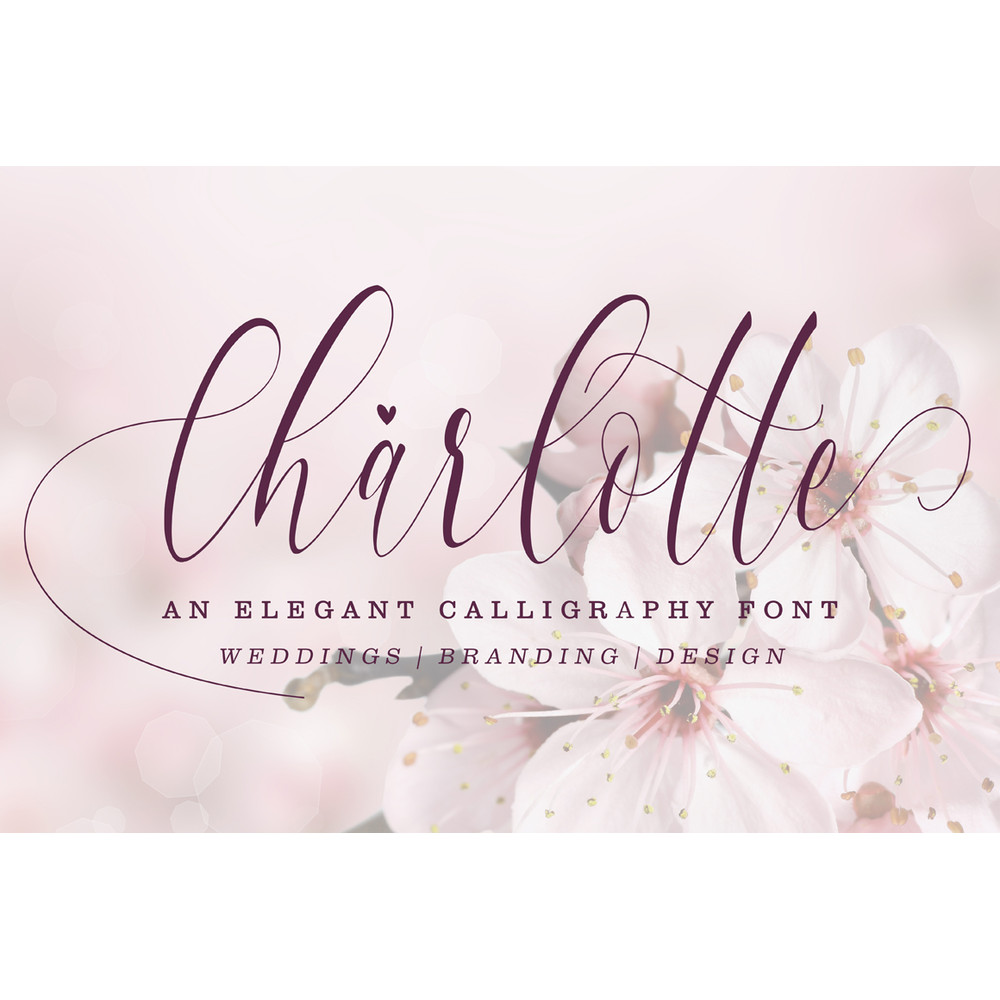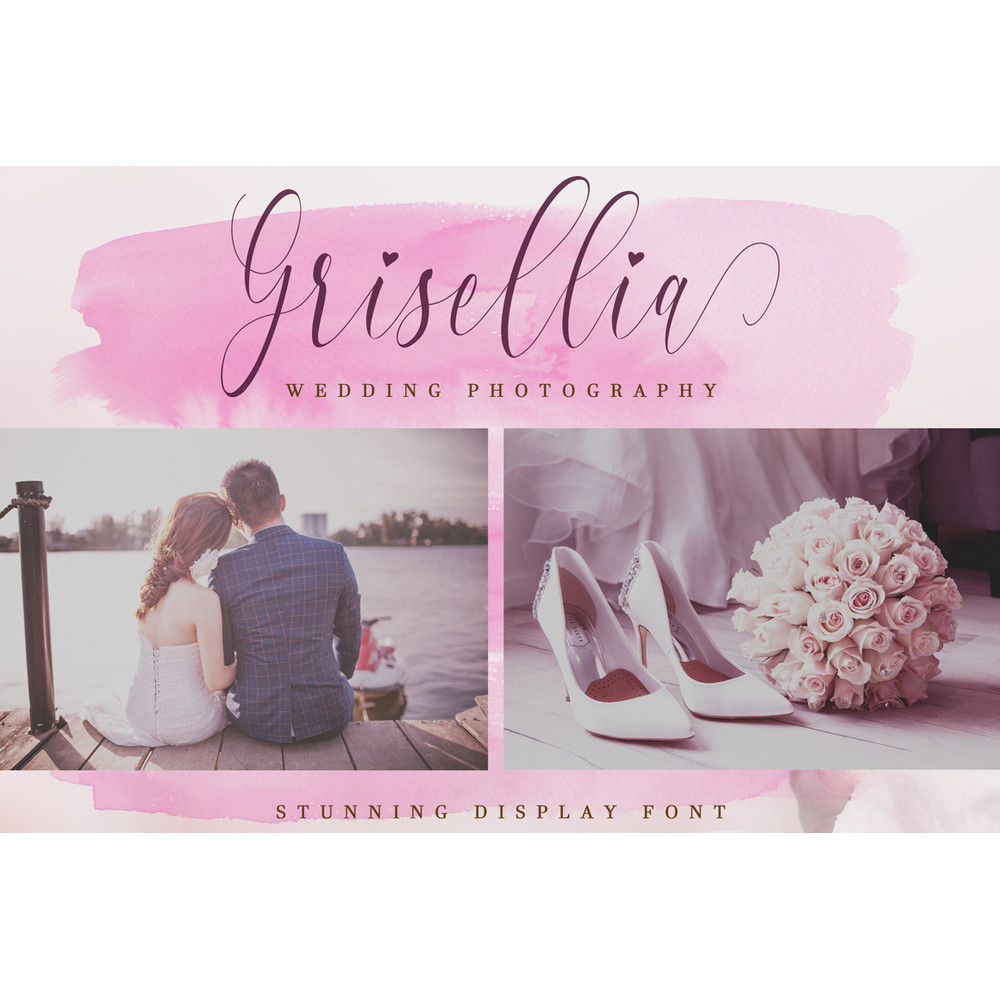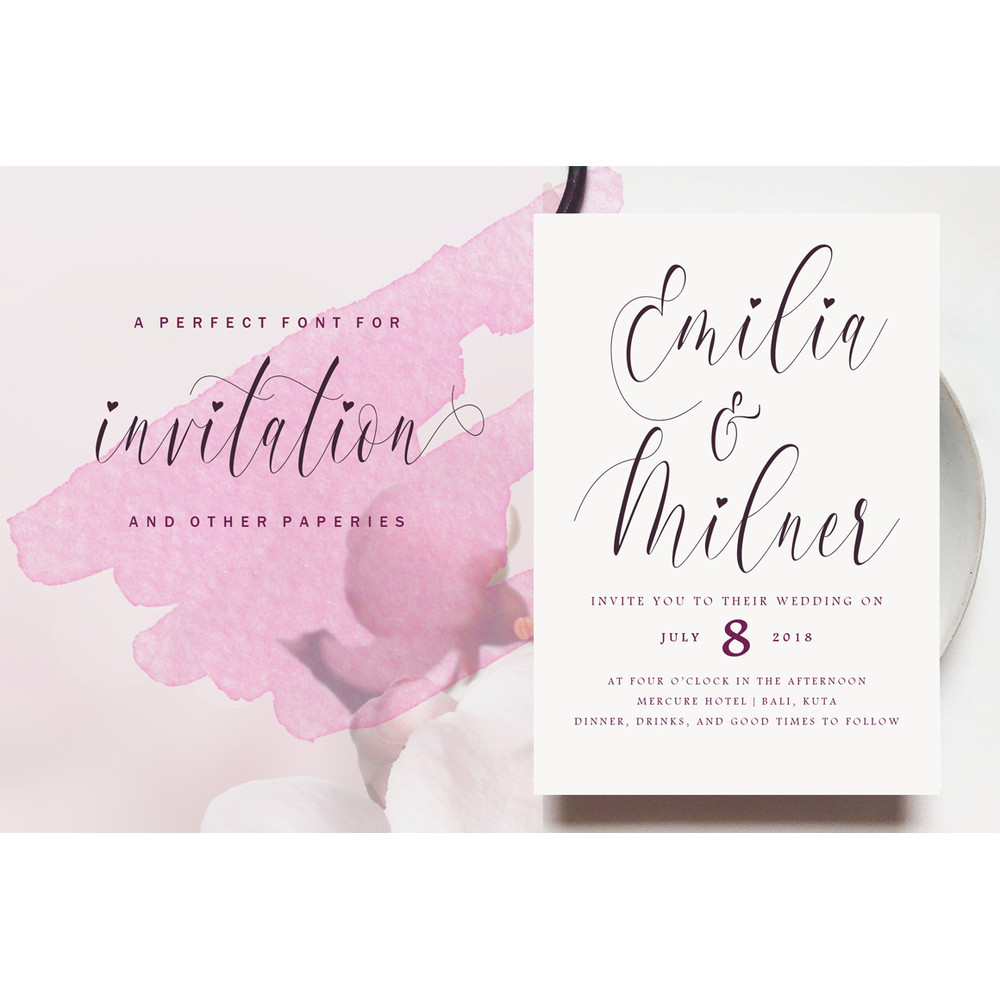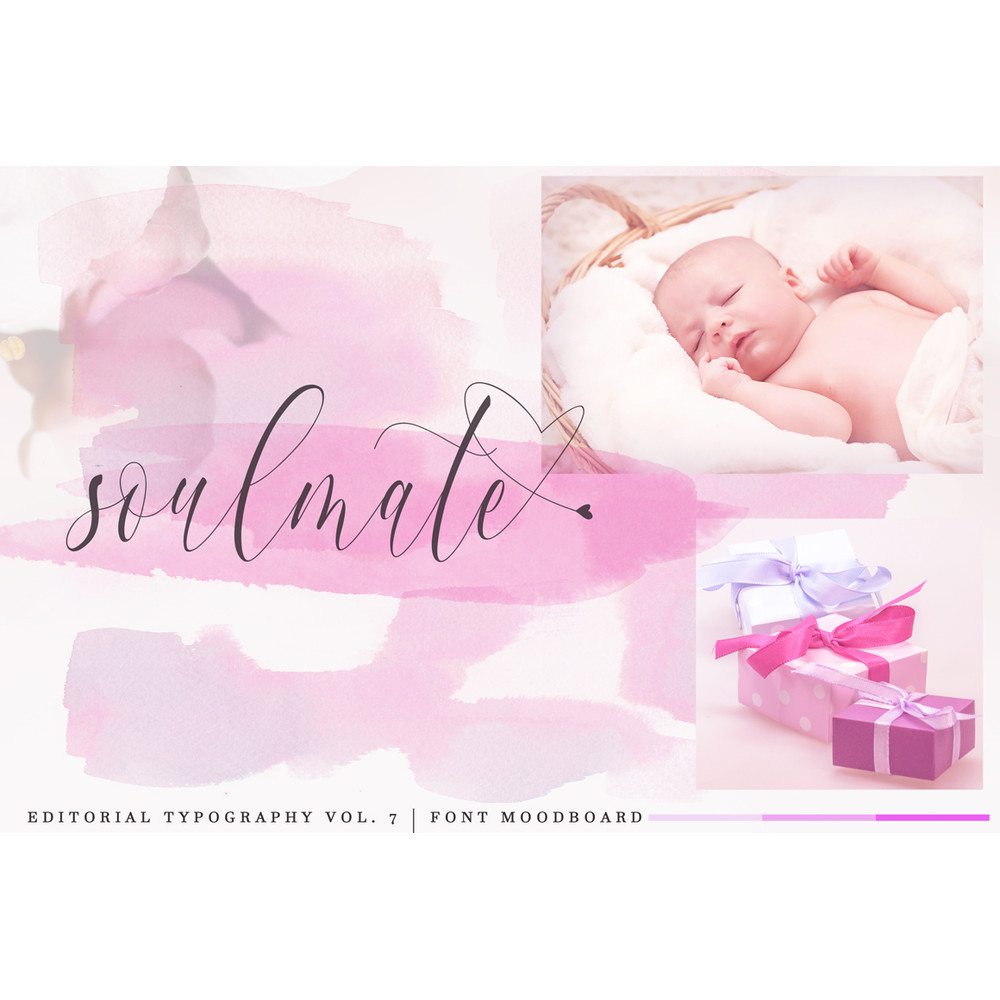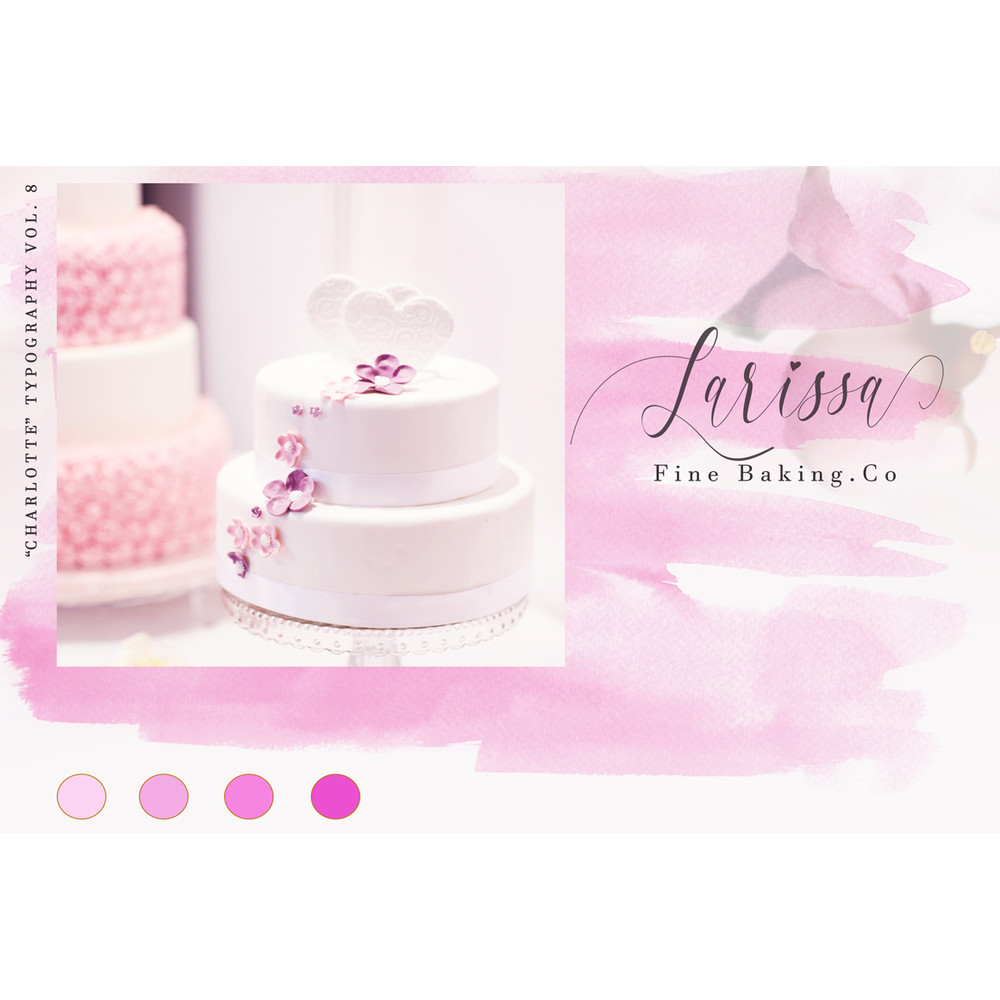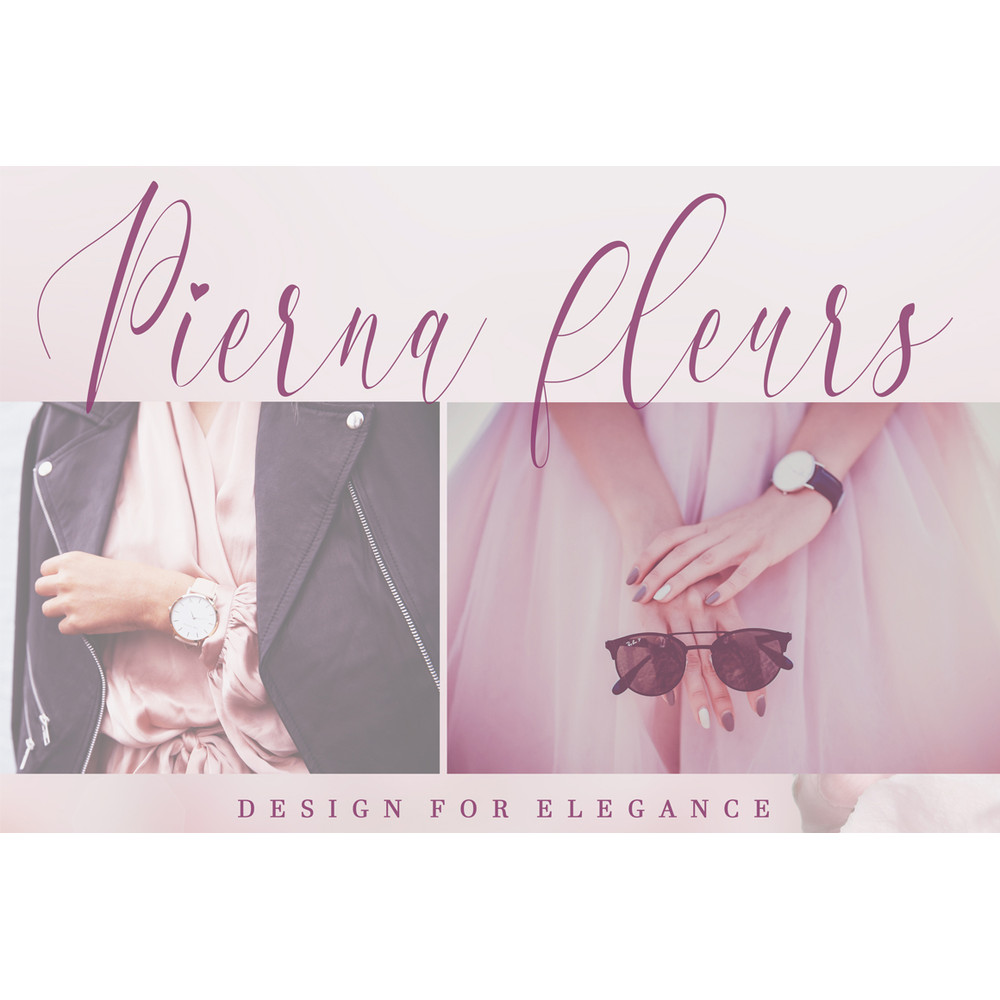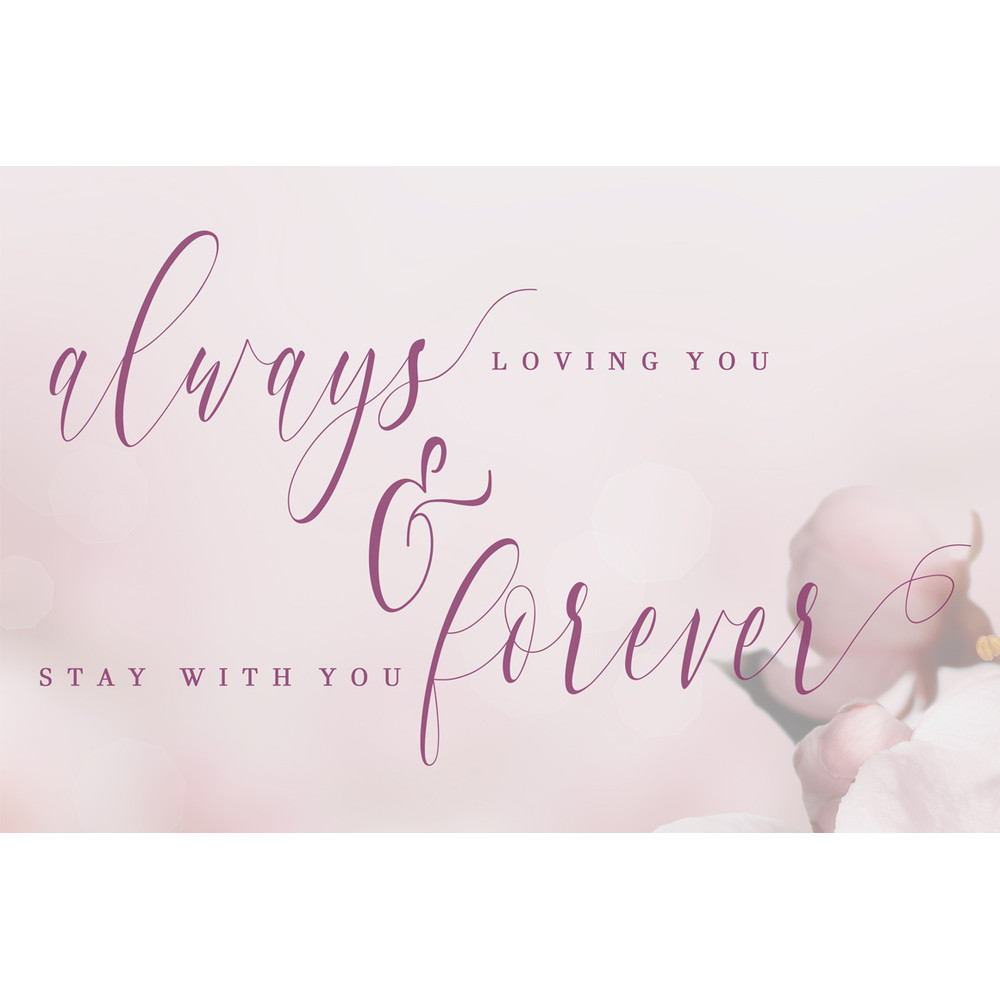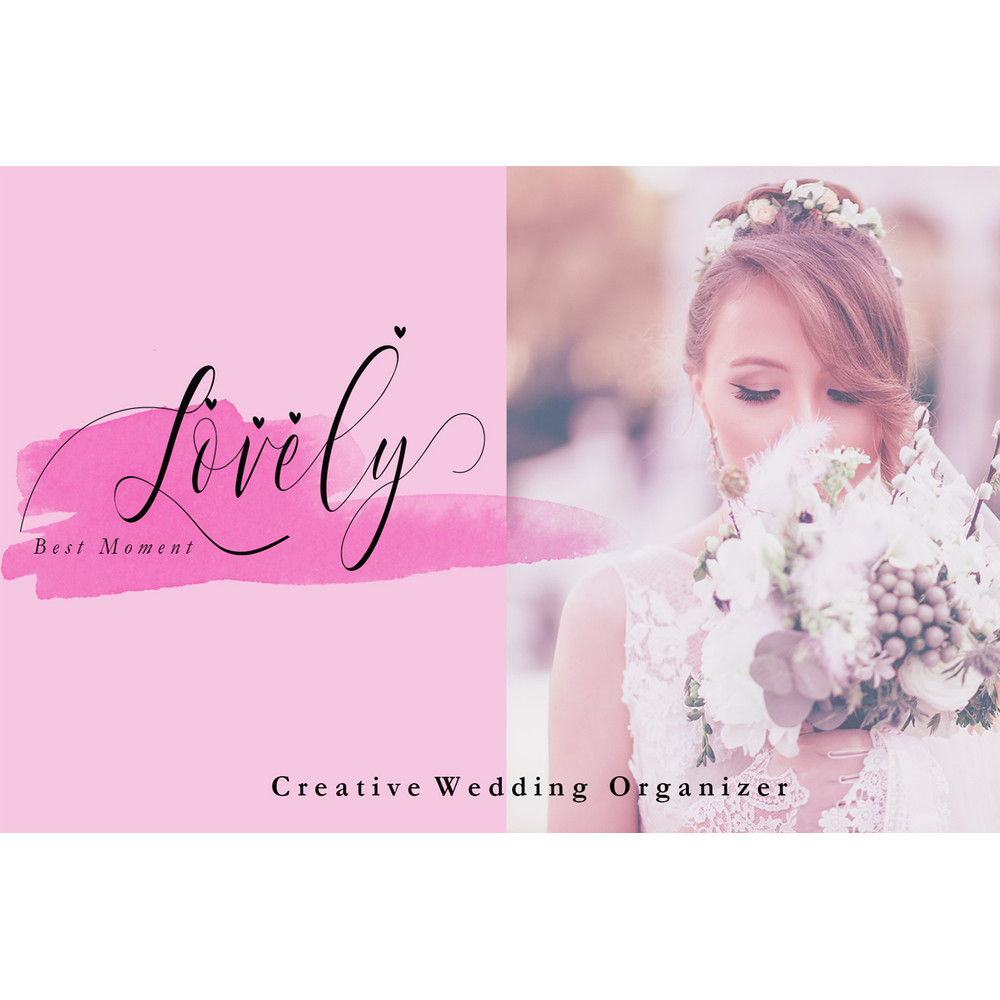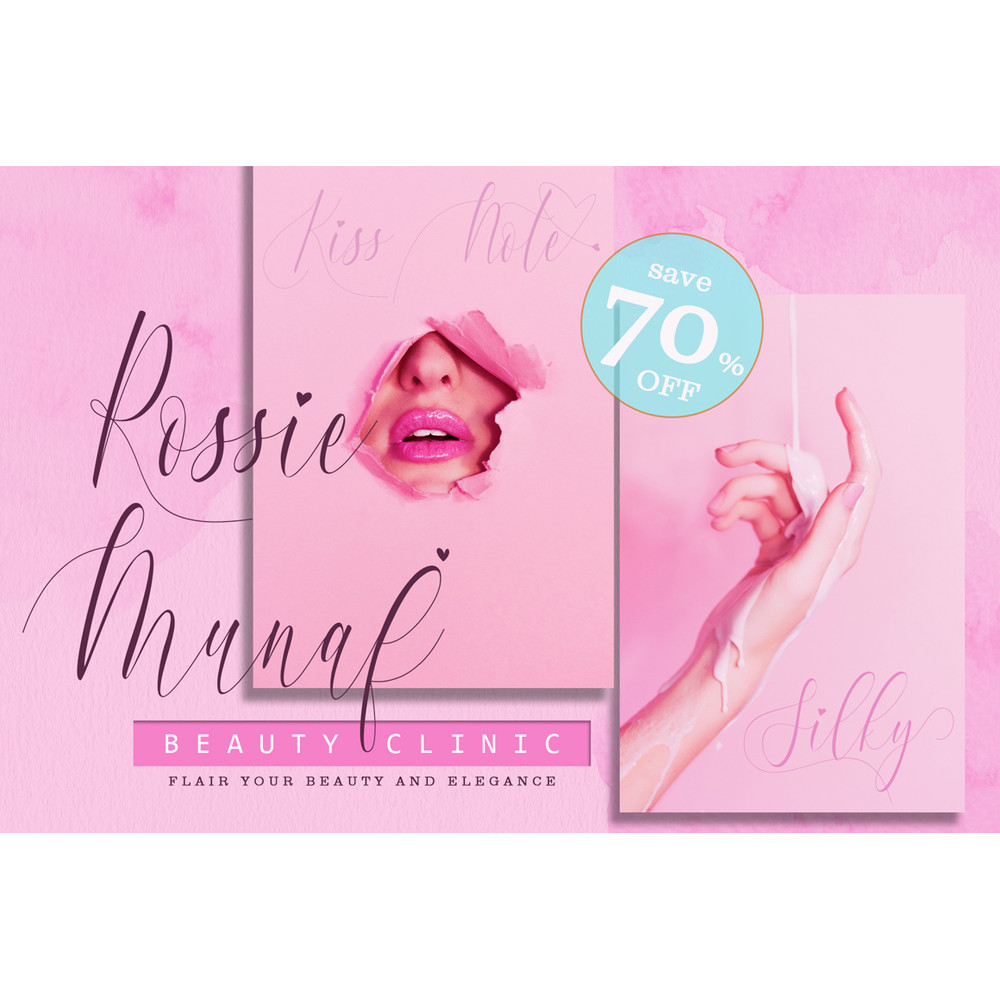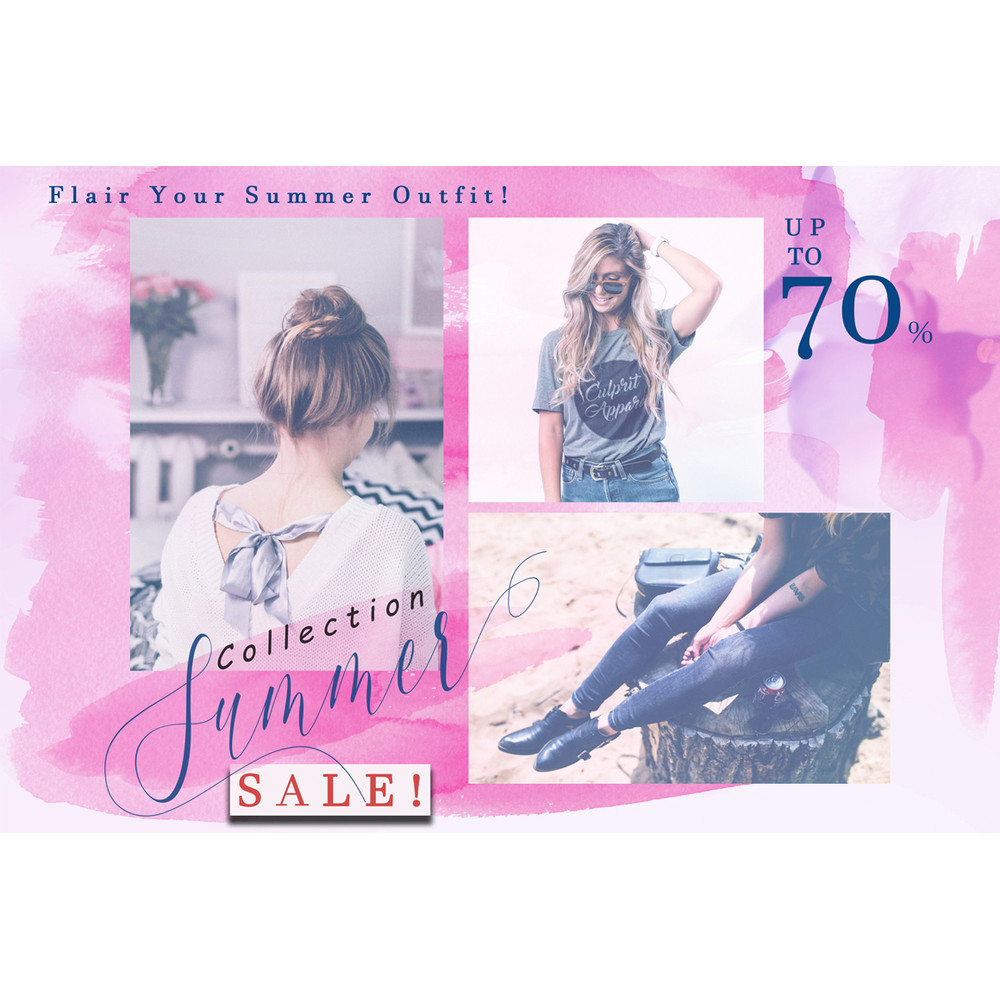
Charlotte Calligraphy , this is elegant font with heart touch and warm desire.
For those of you who are need a touch of elegance and modernity for your designs or branding, this font was created for you! No doubt!
Charlotte was built with OpenType features and includes stylistic set alternate and some quirky ligatures.
And there is ending swashes, numbers, punctuation, and it also supports other languages.